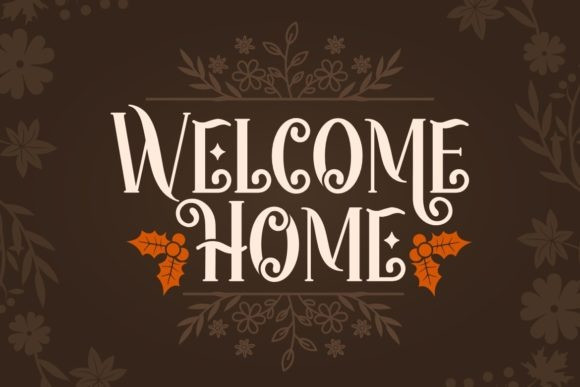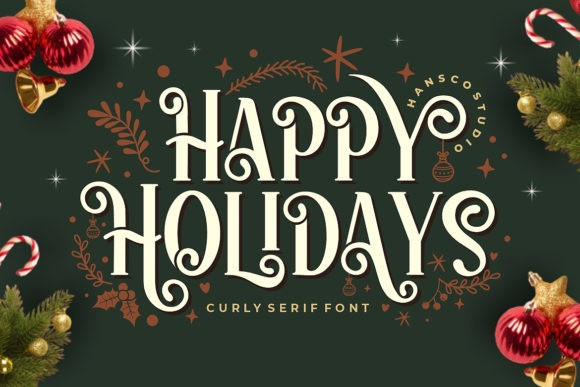
Happy Holidays Font
Happy Holidays Font is a cool, whimsical and detailed display font. It looks stunning on wedding invitations, thank you cards, quotes, greeting cards, logos, business cards and every other design which needs a customized touch.